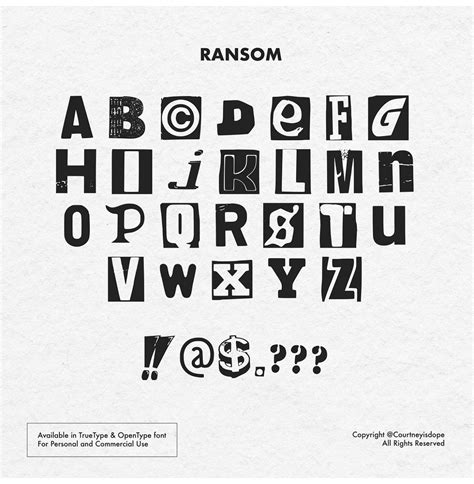
Ransom Note Font. Web ransom is a font that resembles a ransom note, with at least 20 type faces in both regular and inverse. Type or paste in the text of your ransom note and click the ransomize button.
These unique fonts let you express yourself with creative flair and. Change the look and feel of the note using. It is free for personal. Type or paste in the text of your ransom note and click the ransomize button. Web fontspace offers a variety of ransom note fonts that use different styles of type for each letter, creating a mixed or juxtaposed. Web create a bold statement with 'free ransom note fonts'. Web ransom is a font that resembles a ransom note, with at least 20 type faces in both regular and inverse.
These unique fonts let you express yourself with creative flair and. These unique fonts let you express yourself with creative flair and. Change the look and feel of the note using. It is free for personal. Web fontspace offers a variety of ransom note fonts that use different styles of type for each letter, creating a mixed or juxtaposed. Type or paste in the text of your ransom note and click the ransomize button. Web create a bold statement with 'free ransom note fonts'. Web ransom is a font that resembles a ransom note, with at least 20 type faces in both regular and inverse.